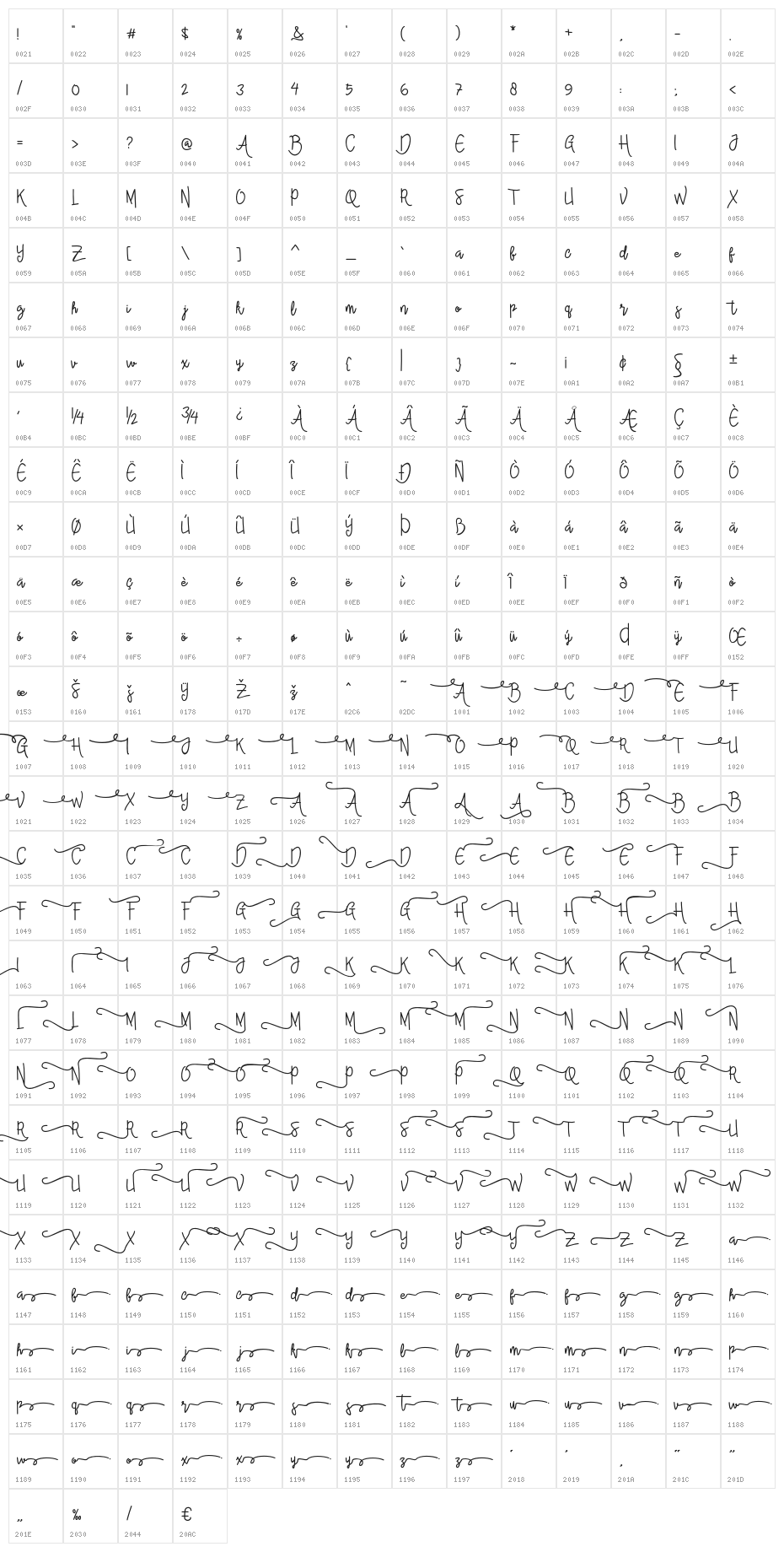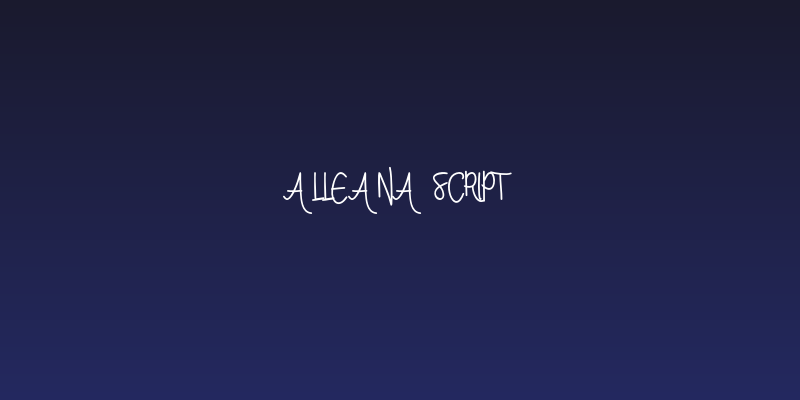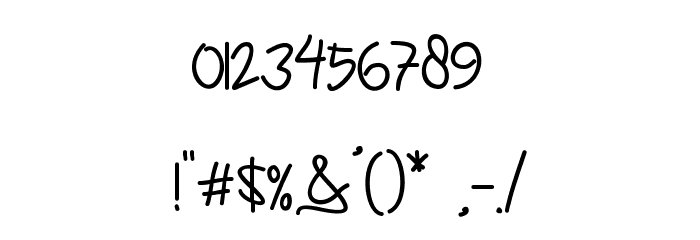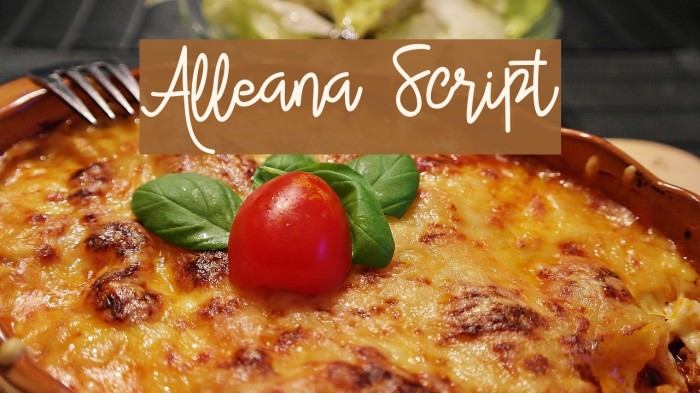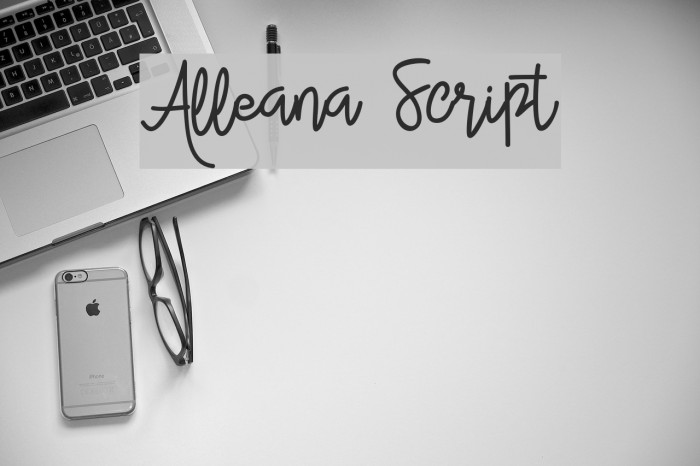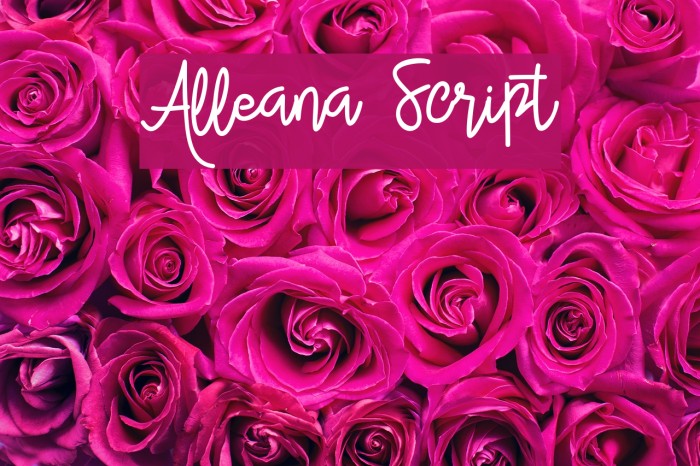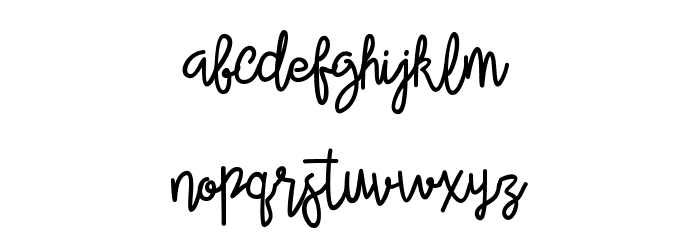
Alleana Script Font
Alleana Script Description
This font features a playful and flowing script style, characterized by its smooth, connected strokes and a casual, handwritten appearance. The uppercase letters are tall and slightly narrow, with a whimsical flair that adds personality to each character. The lowercase letters maintain a consistent flow, enhancing the font's legibility while preserving its artistic charm. Numbers and special characters are crafted with the same fluidity, ensuring a cohesive look across all text. This font's unique style makes it ideal for projects that require a personal touch or a creative, informal vibe.
| Proposed Projects | Ideal for greeting cards, invitations, personal branding, and creative projects. |